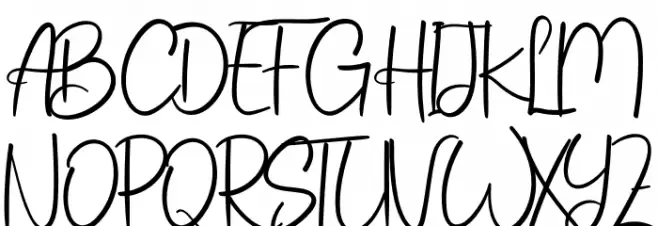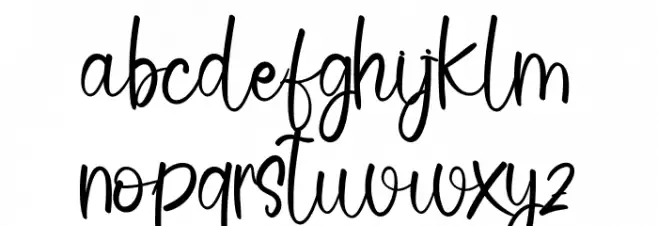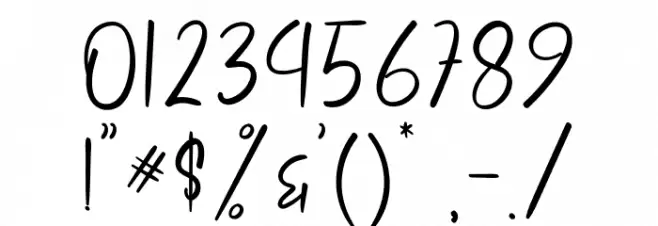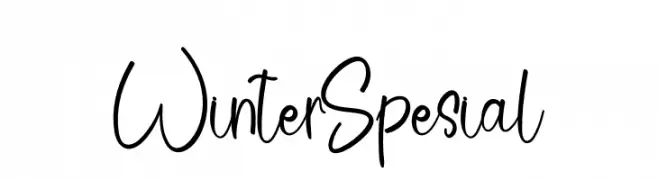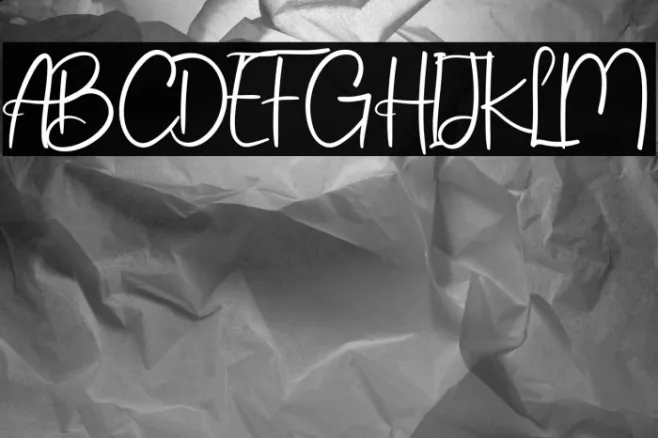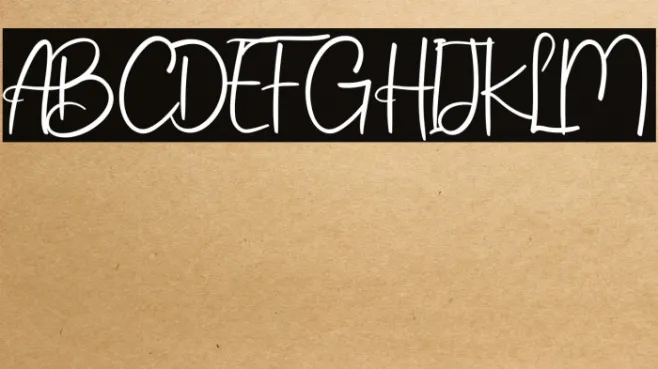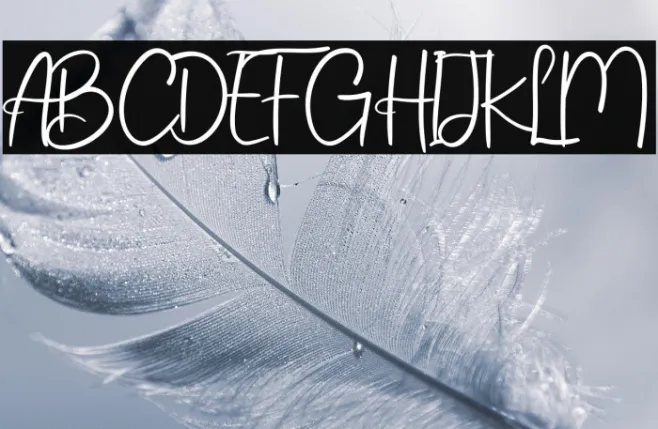
Winter Spesial Font
Winter Spesial Description
A playful and casual handwritten font with a modern touch, featuring tall, narrow letters and a slightly irregular baseline.
Playful handwritten font with a modern style.
- Font: Winter Spesial
- Proposed Projects: Greeting cards, invitations, casual branding.
- Category: Handwritten
- Overall Style: Casual, Modern
- Use Case: Logos, Headlines, Casual text